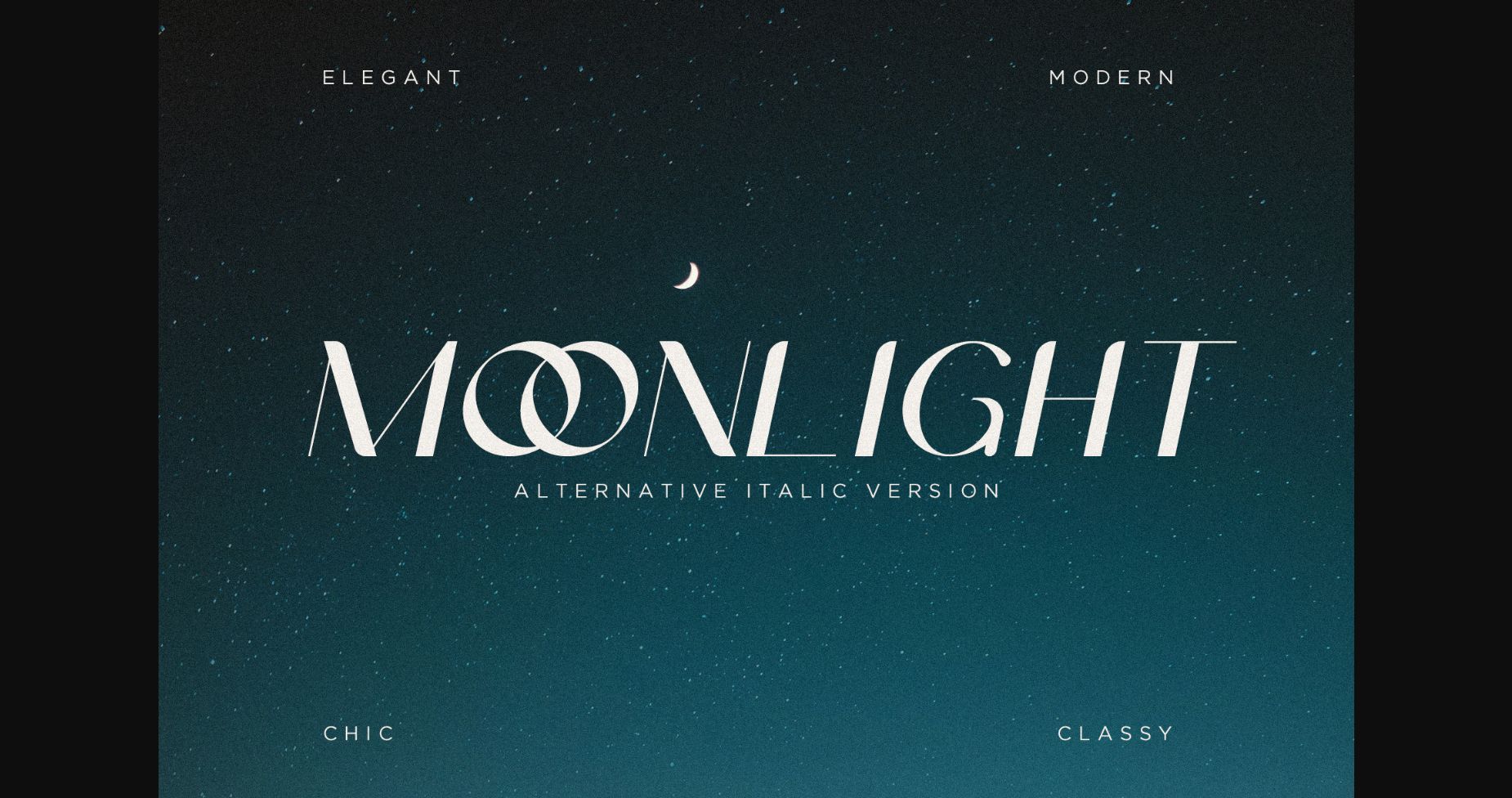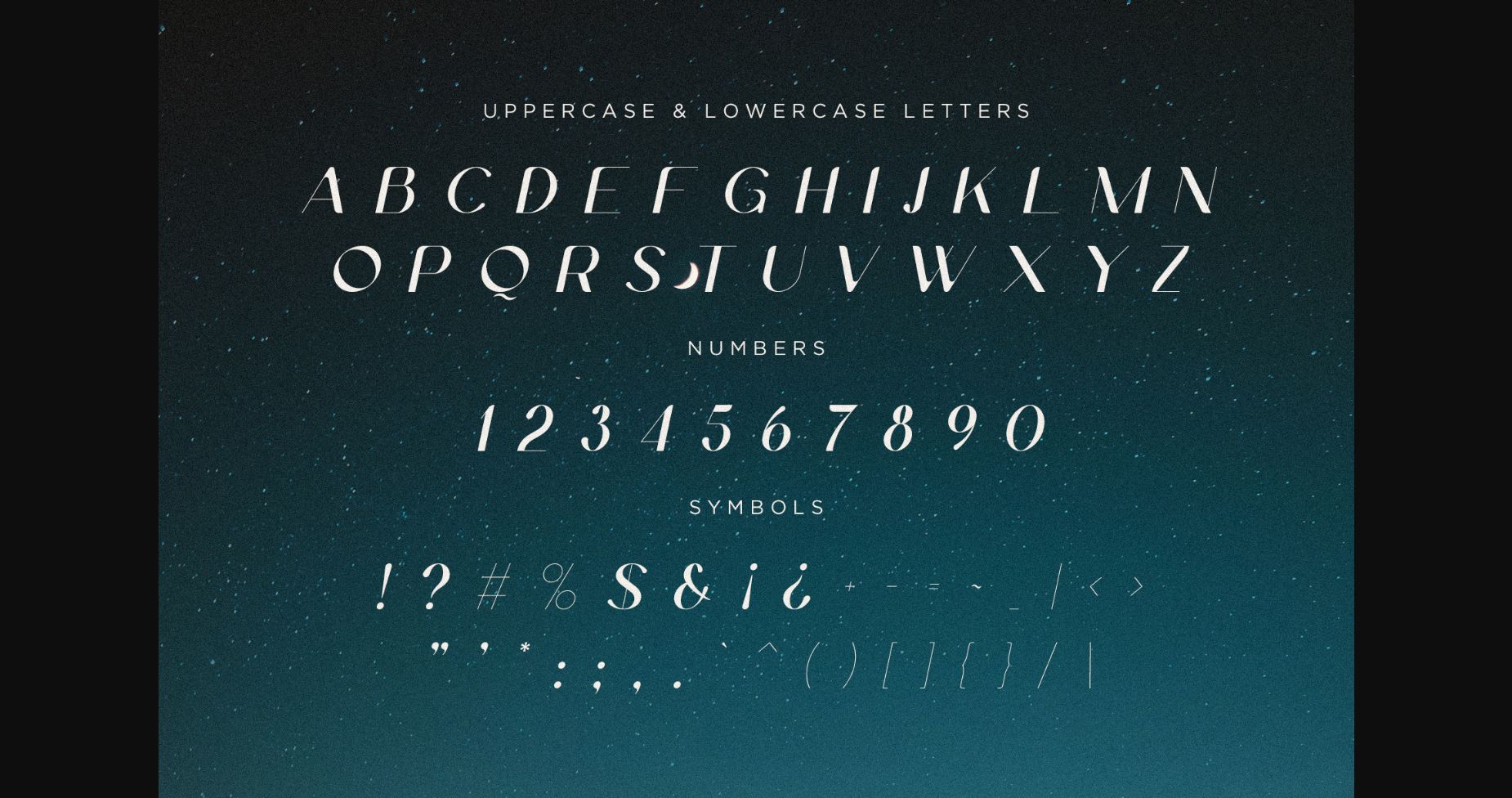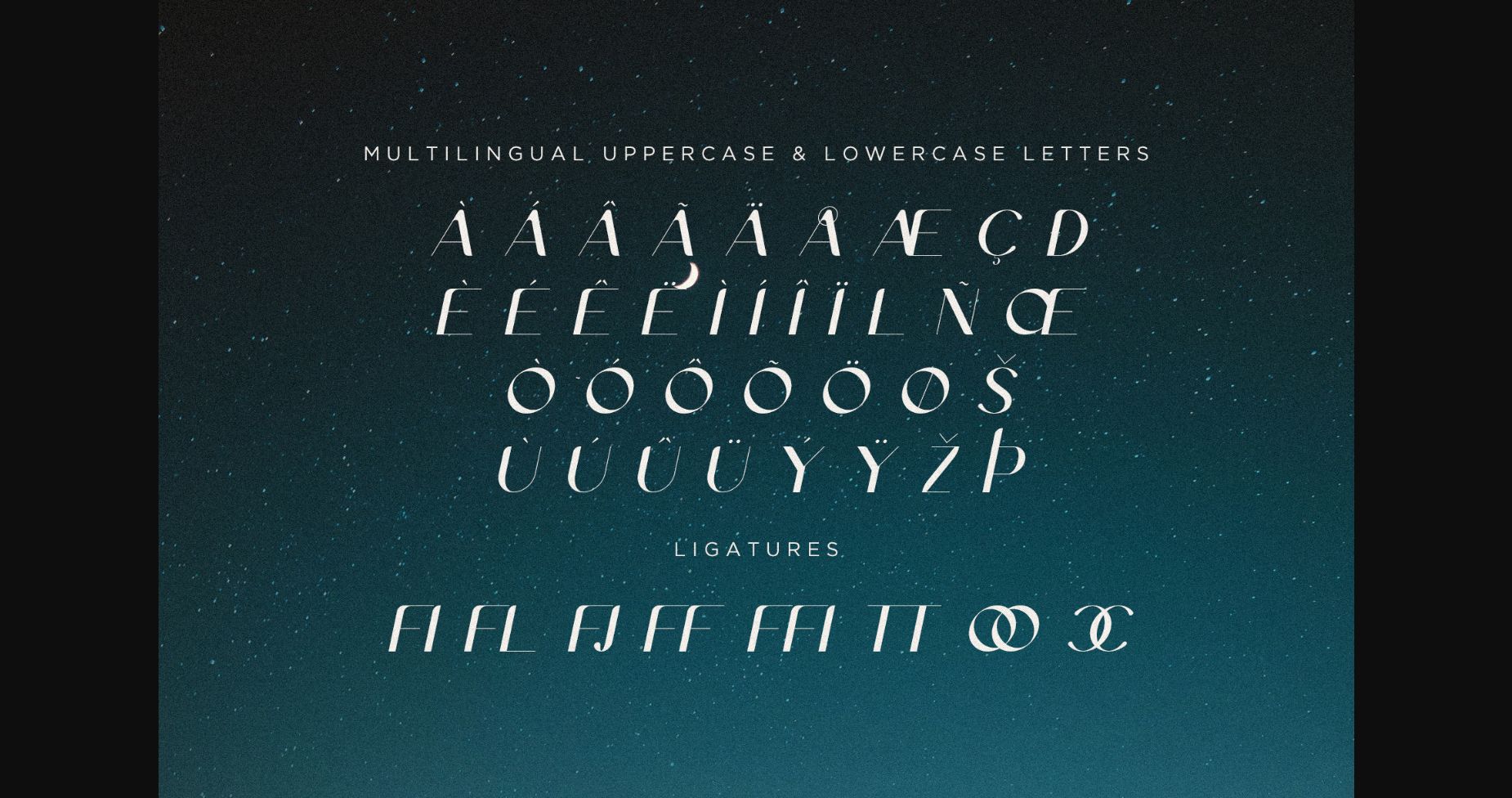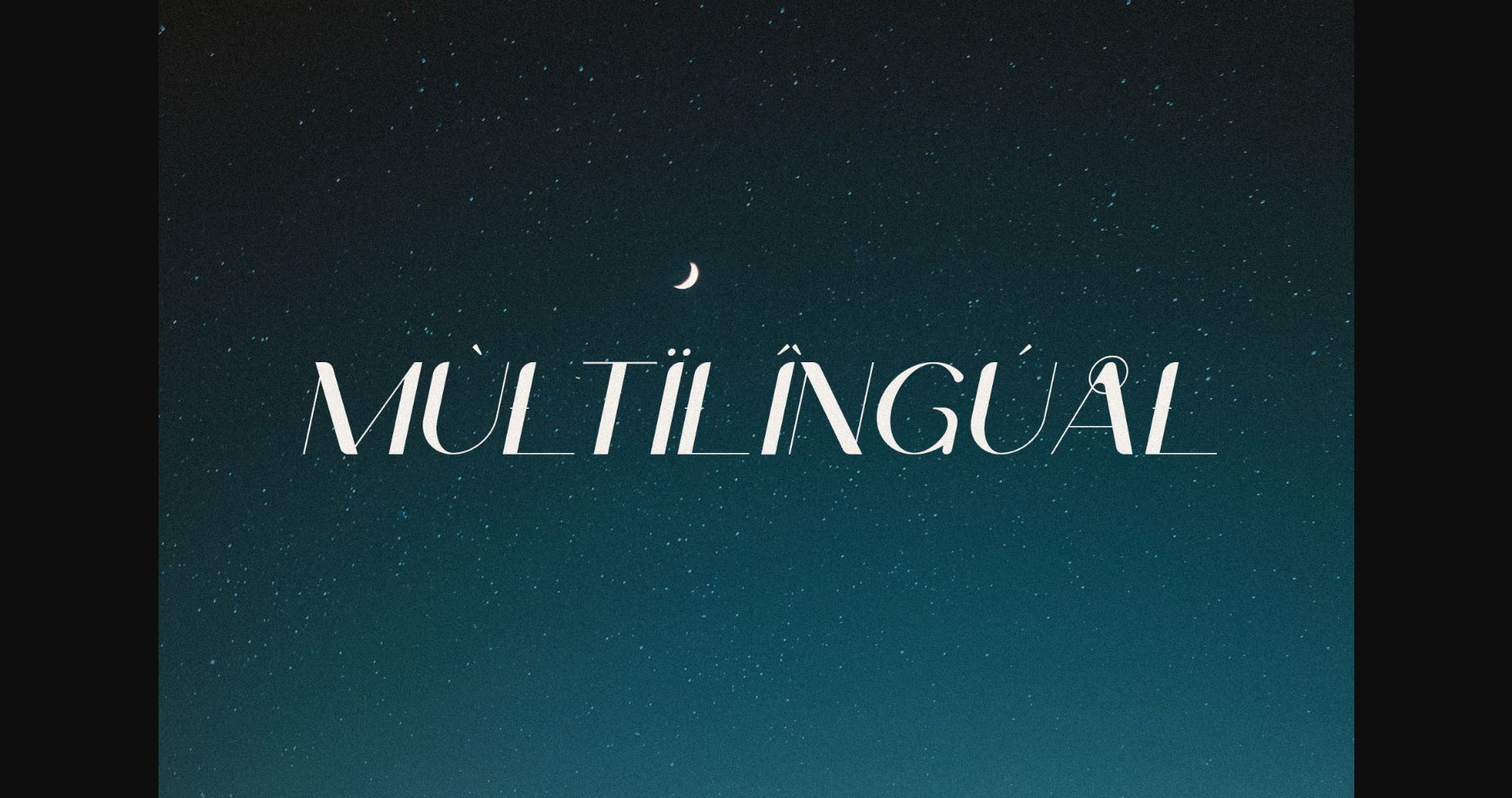
HomeSans Serif FontsMoonlight Font Sans Serif Fonts Moonlight Font FacebookXPinterestWhatsApp 1 of 6 ... Moonlight Font Poster 2... Moonlight Font Poster 3... Moonlight Font Poster 4... Moonlight Font Poster 5... Moonlight Font Poster 6... About Moonlight Font Moonlight Alternative Italic is an elegant, modern, chic, and classy font. Moonlight Alternative Italic has a simple and unique style with standard ligatures and supports multilingual languages. DOWNLOAD NOW People also explored Augustine Font Badger Delight Font Happy Swirl Font Makayla Font Basketball Font Skull Pathway Font Soldier William Holmes Font High Prosess Font Sommar Font 389 0 TagsMoonlight Font Previous articleMixue FontNext articleMilcone Font LEAVE A REPLY Cancel reply Comment: Please enter your comment! Name:* Please enter your name here Email:* You have entered an incorrect email address! Please enter your email address here Website: Save my name, email, and website in this browser for the next time I comment. Personal Use Free Larosh Sithal Duo Personal Use Free Read more about this font Soulties Personal Use Free Read more about this font Old Linoleum Personal Use Free Read more about this font BD AsciiMax Personal Use Free Read more about this font BLOG Free vs Paid Fonts: Why Investing in Premium Fonts Is Worth It Free vs Paid Fonts: Why Premium Fonts Are Worth It in 2025 The debate of free vs paid fonts continues in the design world. While... Where to Buy American Fonts Online in 2024 Top 10 Handwritten Fonts That Elevate Your Designs Modern Sans-Serif Fonts That Brands Love in 2025